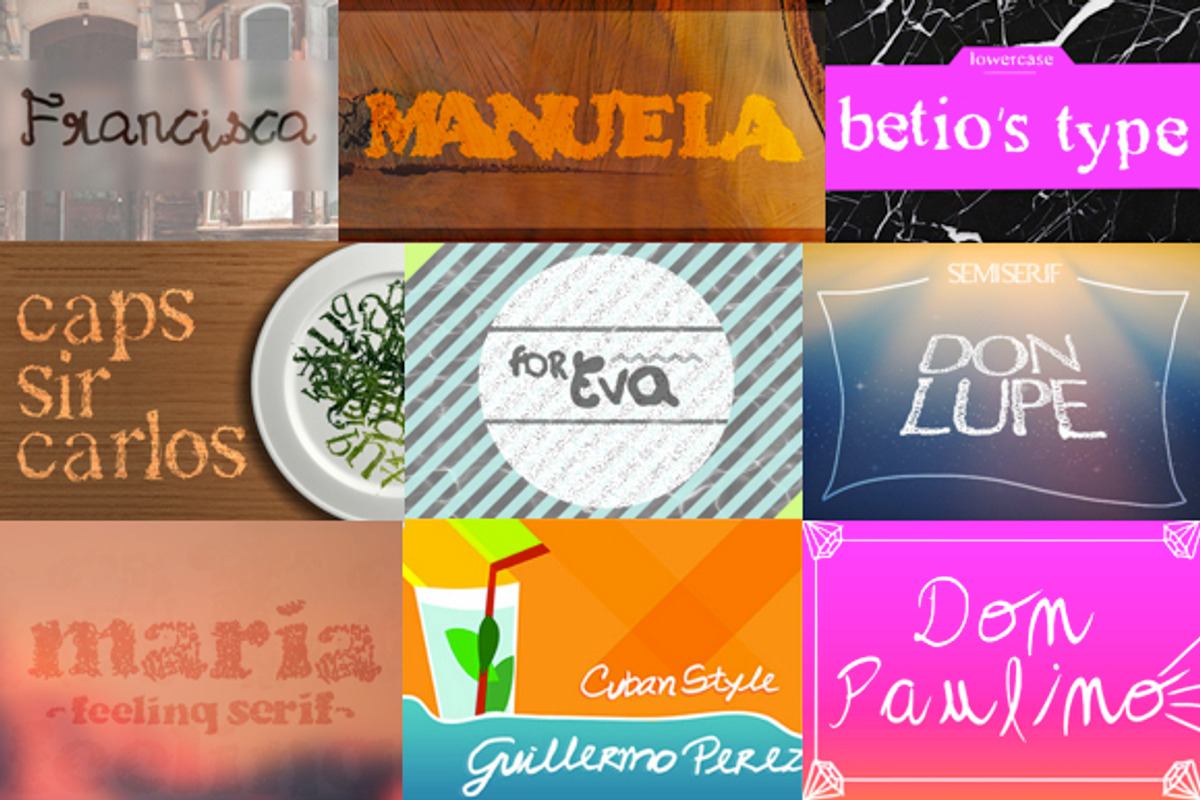
10 Handwritten fonts Free Download
10 Handwritten Fonts Free Download is a charming collection of script typefaces that bring personality, warmth, and authenticity to any project. Each font in this bundle offers its own unique style—ranging from elegant calligraphy to playful, casual handwriting—making it perfect for invitations, logos, branding, quotes, and social media content.
These handwritten fonts are designed to add a handcrafted feel to both print and digital designs. Whether you're creating wedding stationery, lifestyle branding, or Instagram posts, this pack provides a versatile toolkit of expressive, easy-to-use typefaces.